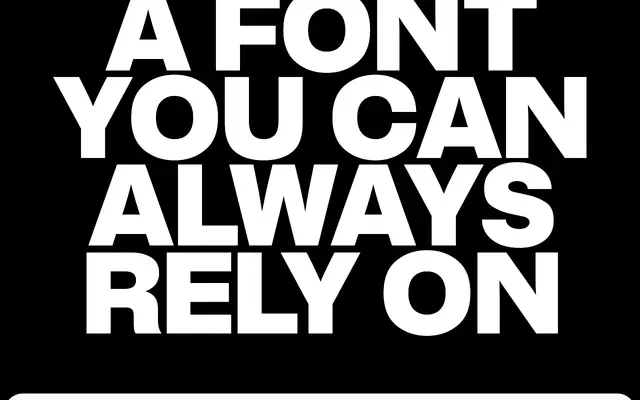
Brut Grotesque
Bureau Brut · Yoann Minet · 2020
Brut Grotesque specimen from Bureau Brut
A deliberately neutral neo-grotesque spanning ten weights with italics, conceived as Bureau Brut's own workhorse typeface and inspired by Helvetica, Akzidenz-Grotesk and Neue Haas Grotesk.
Designed by Yoann Minet from 2015 and first published in 2020, it aims for the proud impersonality associated with the Swiss neo-grotesque tradition, keeping the typeface subordinate to the content it carries. The family runs from Line to Black across 20 styles, all with italics, and is mirrored by a full Brut Grotesque Mono subfamily of equal weight range. It serves as the foundational typeface across Bureau Brut's broader type collections.
Designed with explicit reference to Helvetica, Akzidenz-Grotesk and Neue Haas Grotesk, positioning it firmly in the neo-grotesque tradition of neutral, impersonal sans-serifs seeking functional invisibility.